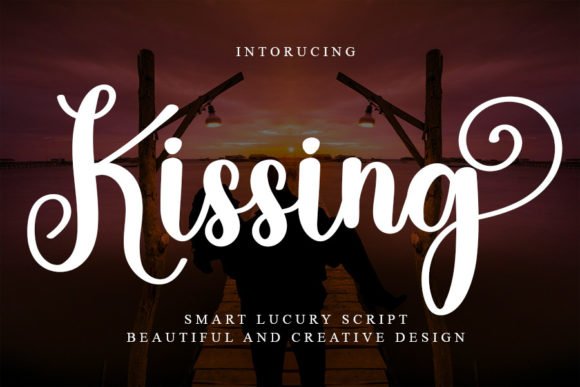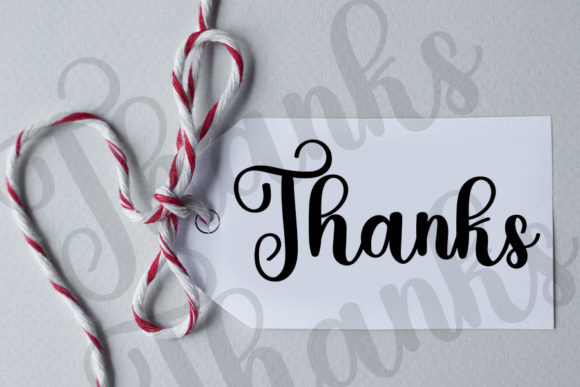
When Words Speak for Themselves
Have you ever been working on a project and suddenly, you’re stuck on the perfect font? You want something that says ‘effortless elegance’ without being too over-the-top. For designers, finding that perfect font can be a game-changer – it’s the difference between a project that’s just ‘good’ and one that’s truly exceptional.
Enter Kissing Font, a charming handwritten font designed to capture the essence of casual sophistication. Its classy calligraphic influences blend seamlessly with a modern twist, making it perfect for designers who want to add a touch of personality to their work. Whether you’re creating a brand identity, designing a wedding invitation, or crafting a social media campaign, Kissing Font is sure to elevate your projects to new heights.
Kissing Font Key Features
- Unique Characteristics: The Kissing Font features a distinctive, hand-drawn design with a playful, cursive feel, making it suitable for creative and informal applications.
Kissing Font Review
Kissing Font is a unique and quirky font that adds a touch of whimsy to any design project. ✨ It’s perfect for creating a playful and romantic atmosphere, making it ideal for Valentine’s Day or wedding invitations.
- ⚠️ Limited versatility: The font’s theme may not be suitable for all types of projects, such as corporate or formal designs.
- ⚠️ Limited character set: The font may not include all the characters you need, such as accented letters or punctuation marks.
Overall, I think Kissing Font is a fun and creative addition to any design project. While it may have some limitations, it’s perfect for projects where you want to add a touch of playfulness and romance. With its unique design and ease of use, I would definitely recommend Kissing Font to designers looking to add some whimsy to their work.
Tips for Getting the Most Out of Kissing Font
Use the Kissing Font to add a touch of whimsy and romance to your designs. Experiment with different font styles and sizes to create a unique look.
The Kissing Font is perfect for:
- Valentine’s Day and anniversary cards
- Love-themed social media graphics
Alternatives to Kissing Font for Designers